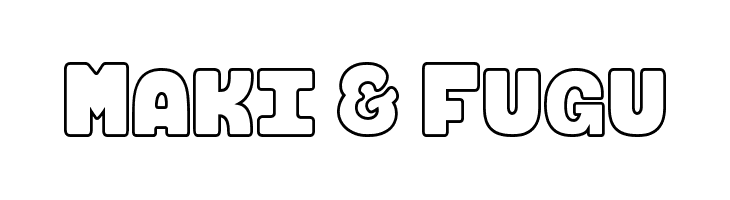
A bold, playful outline font with rounded, bubble-like characters.
A bold, playful font with a bubble-like outline and rounded characters.
A playful, bold outline font with a bubble-like, three-dimensional appearance.
A bold, playful font with thick, rounded strokes and a whimsical style.
A clean, modern font with rounded characters and consistent stroke width.
A playful, rounded font with smooth curves and consistent stroke width.